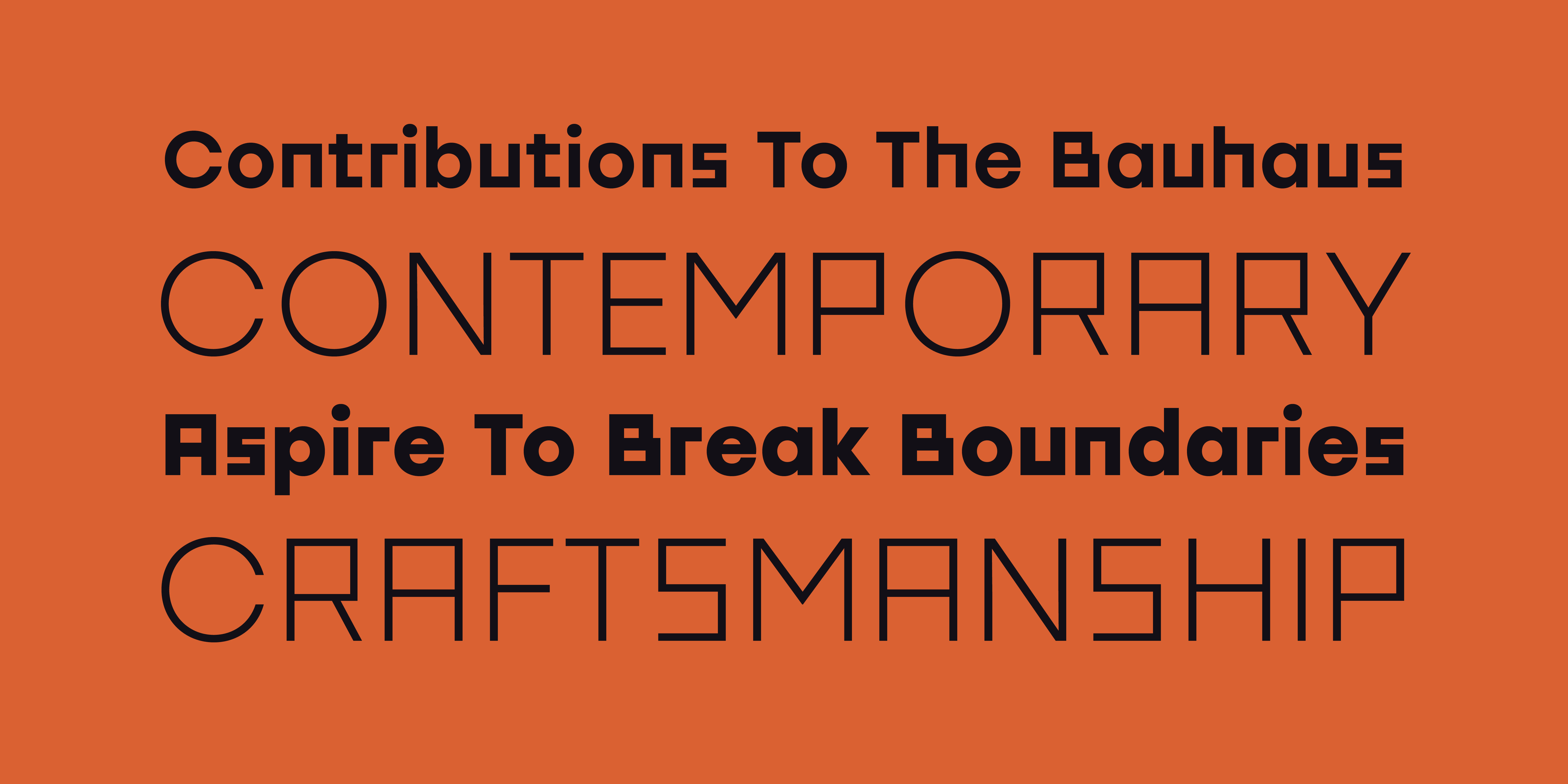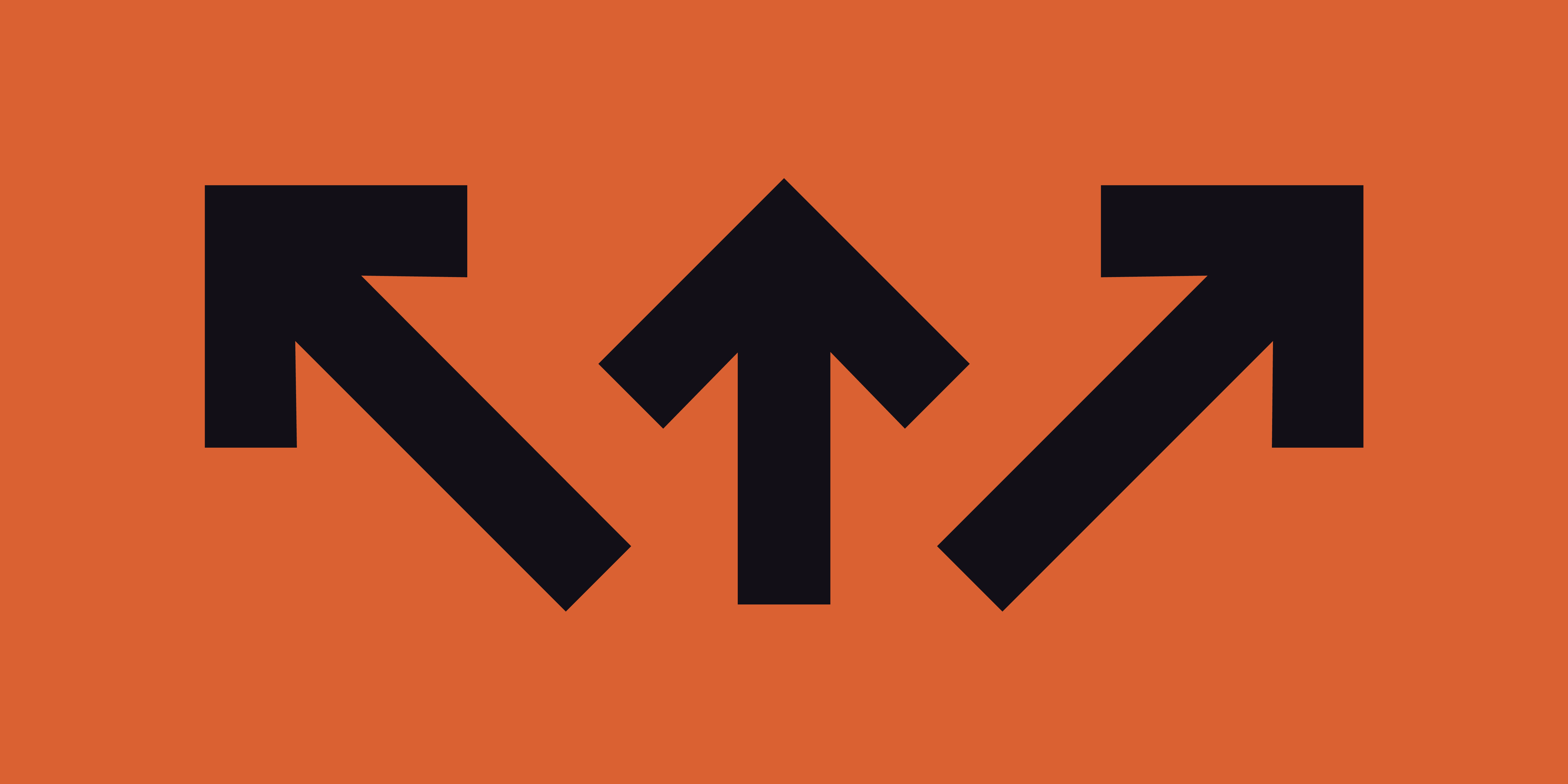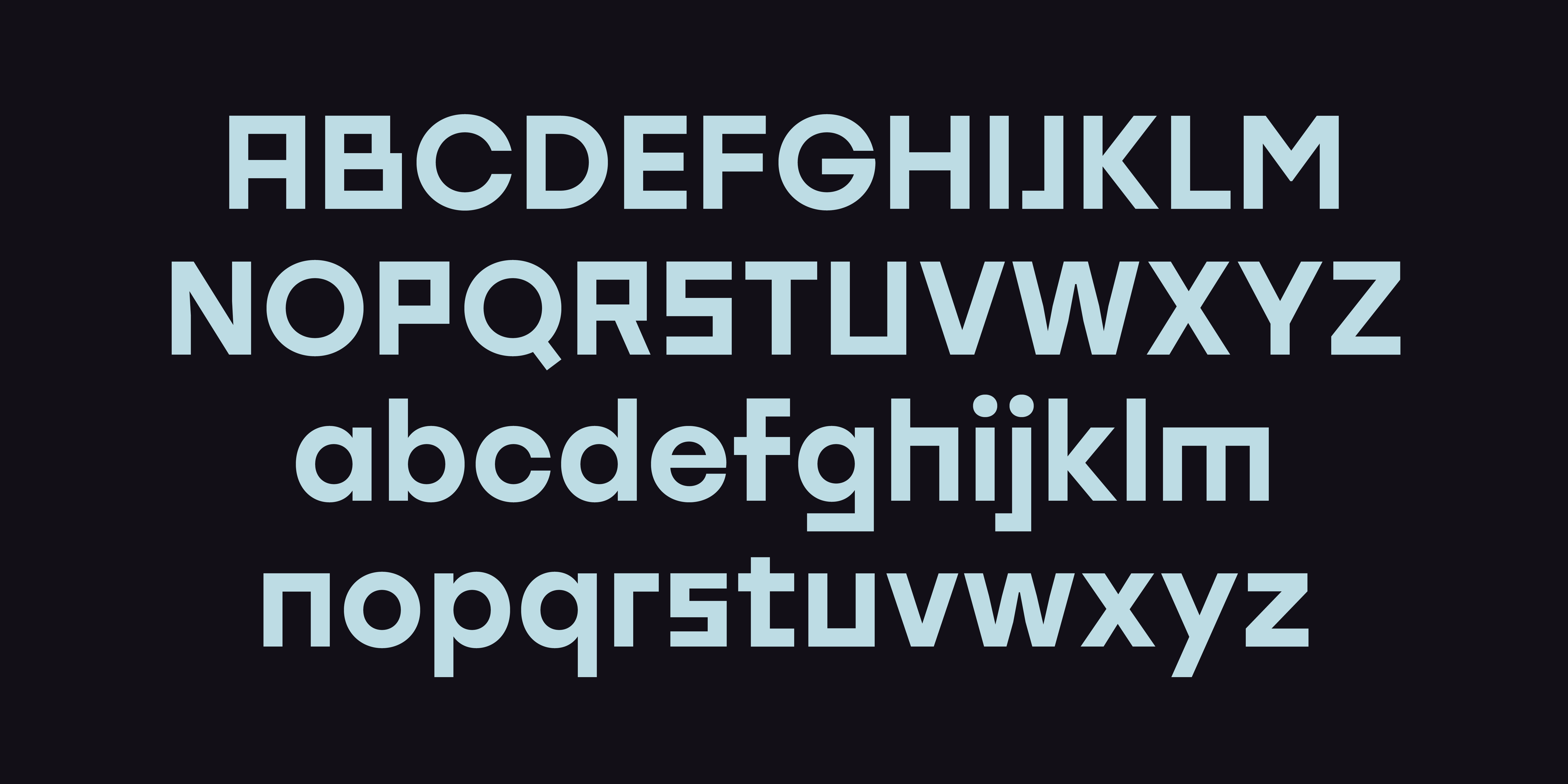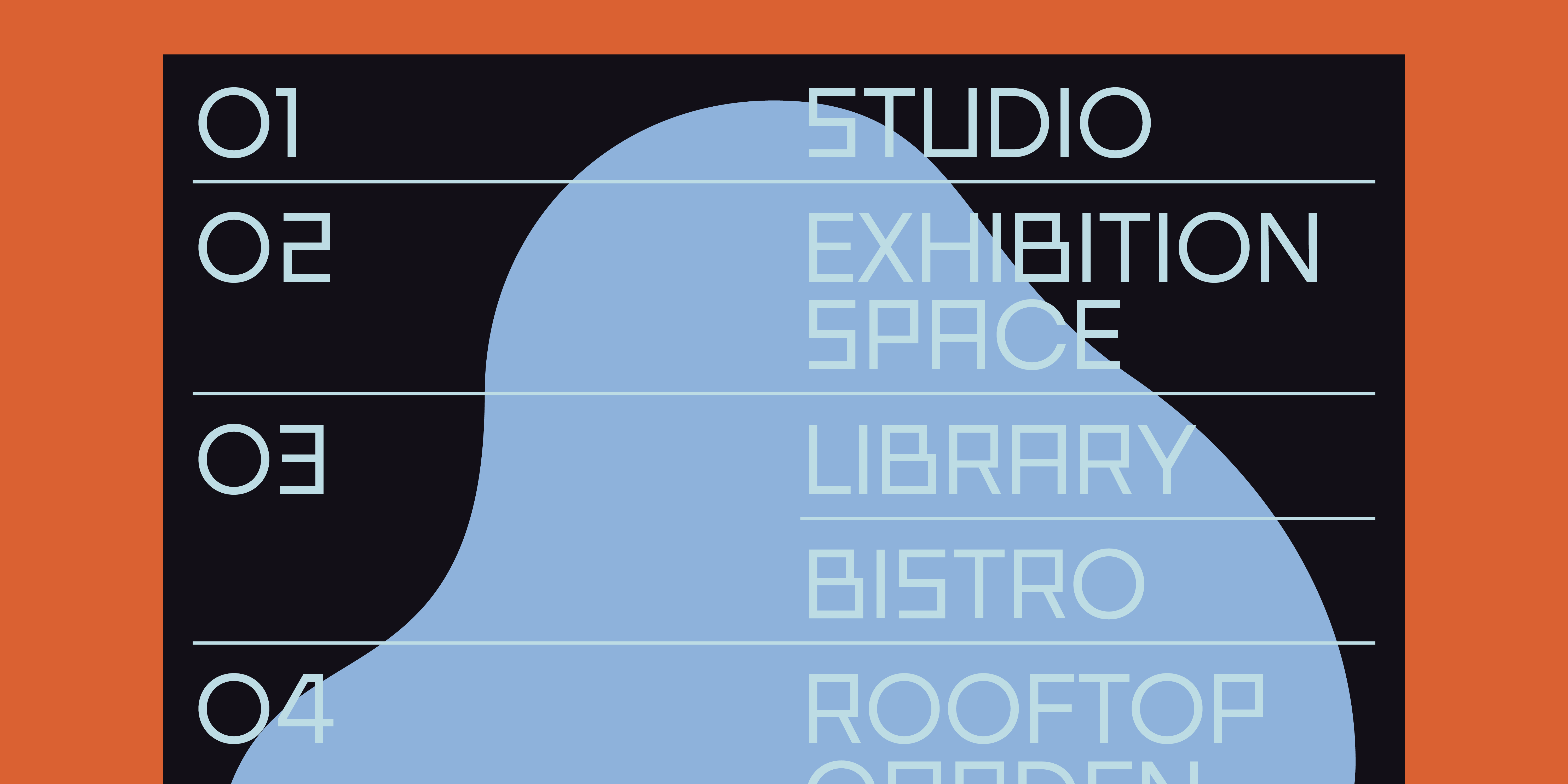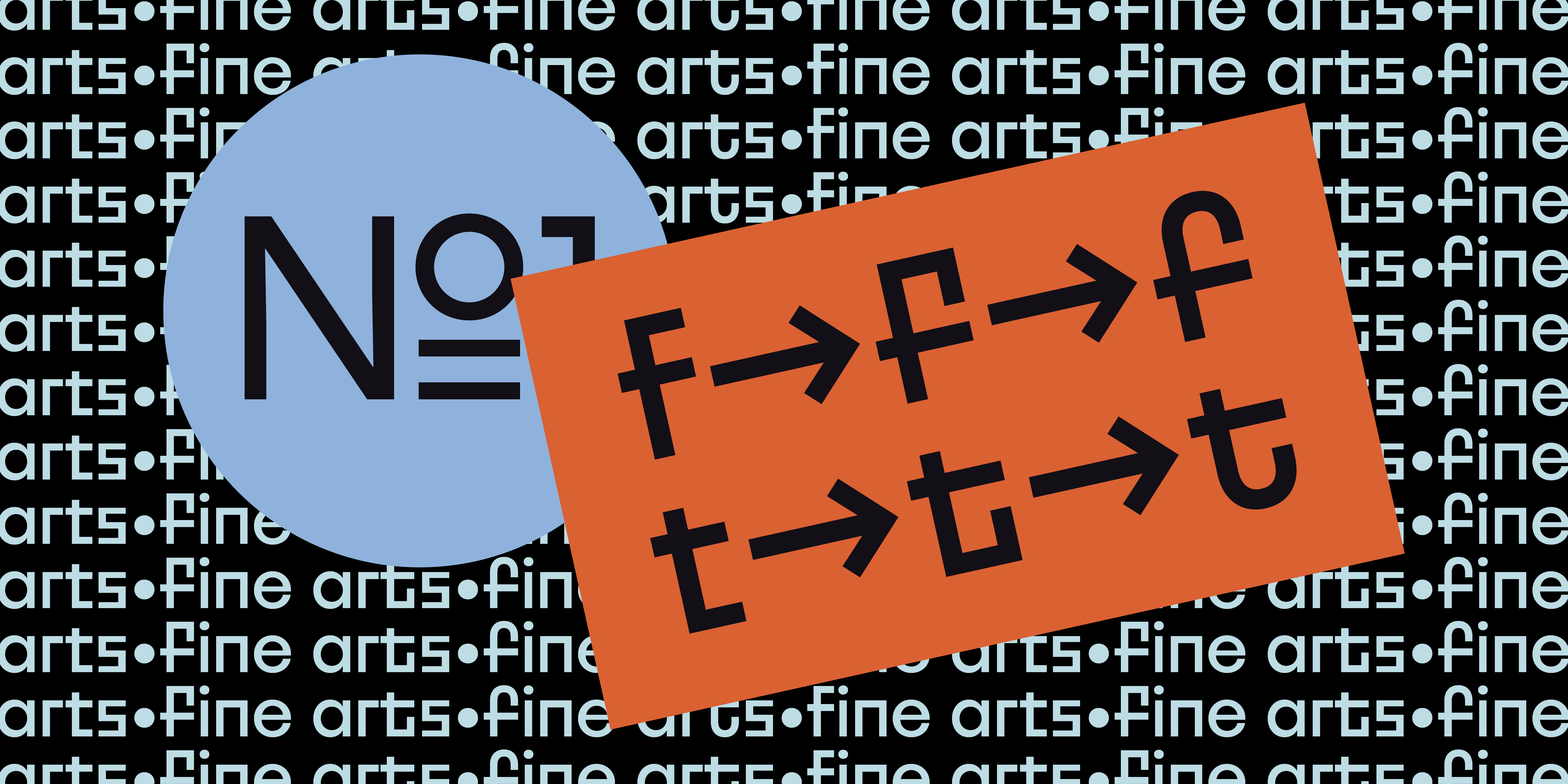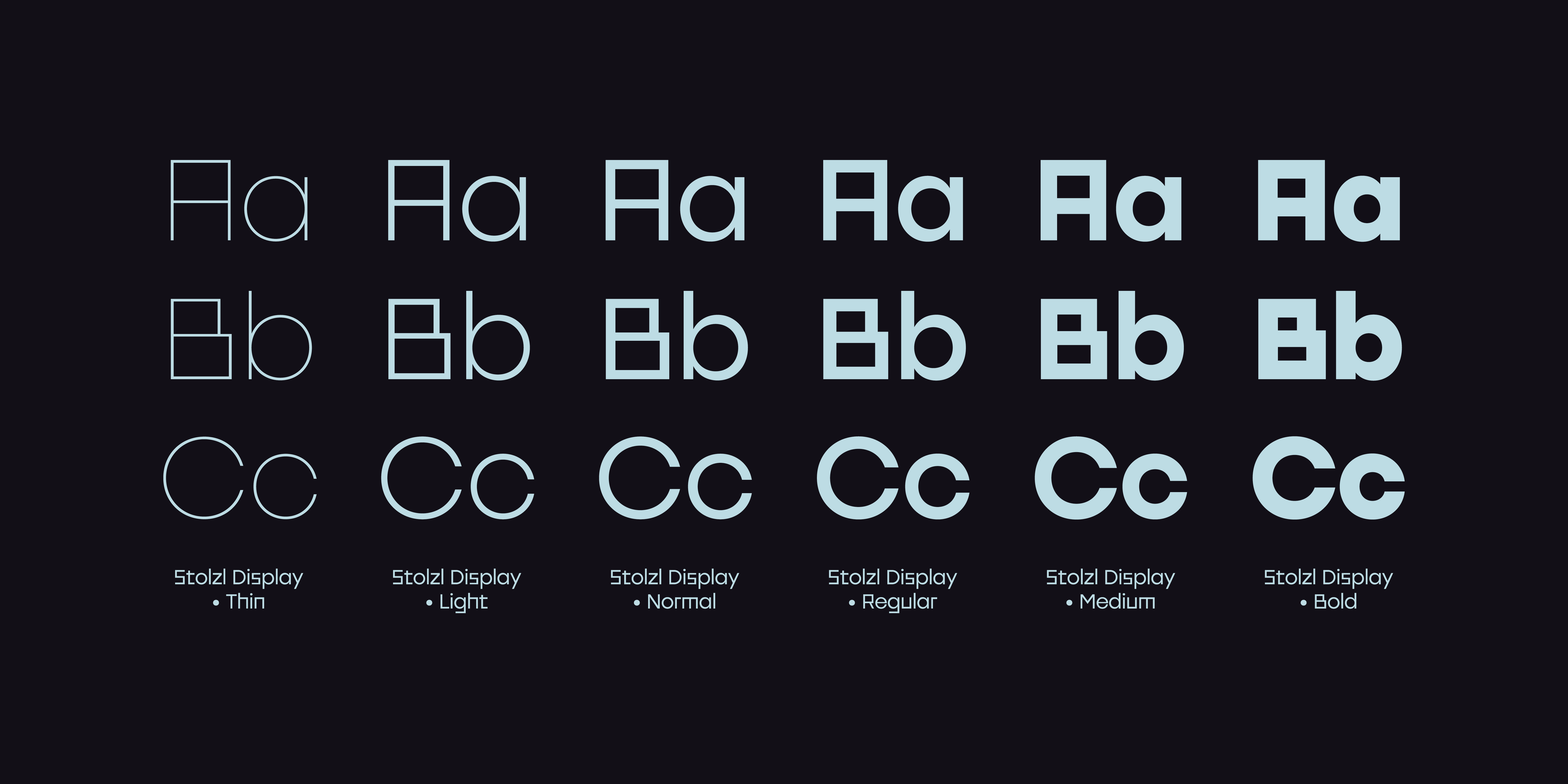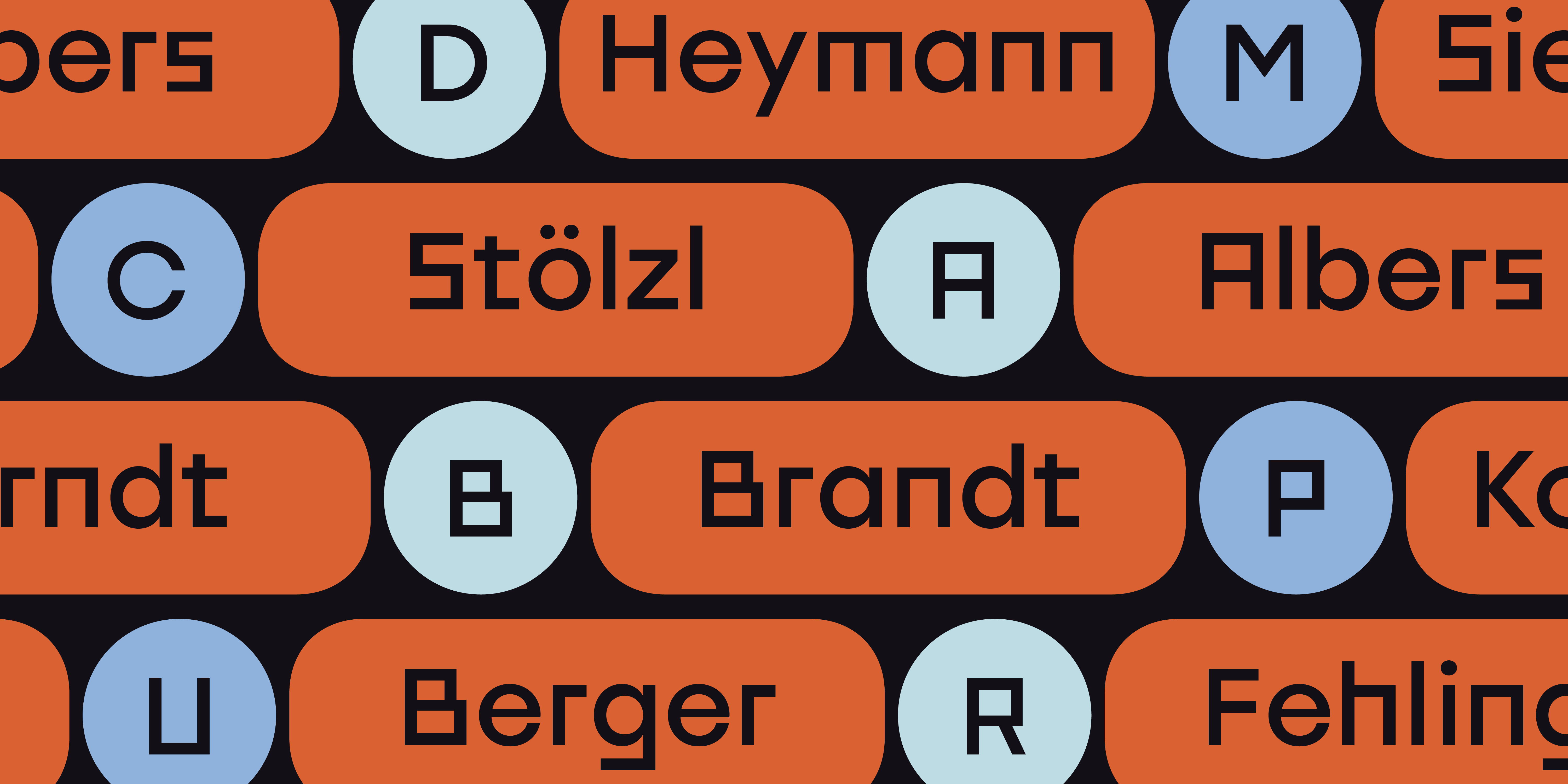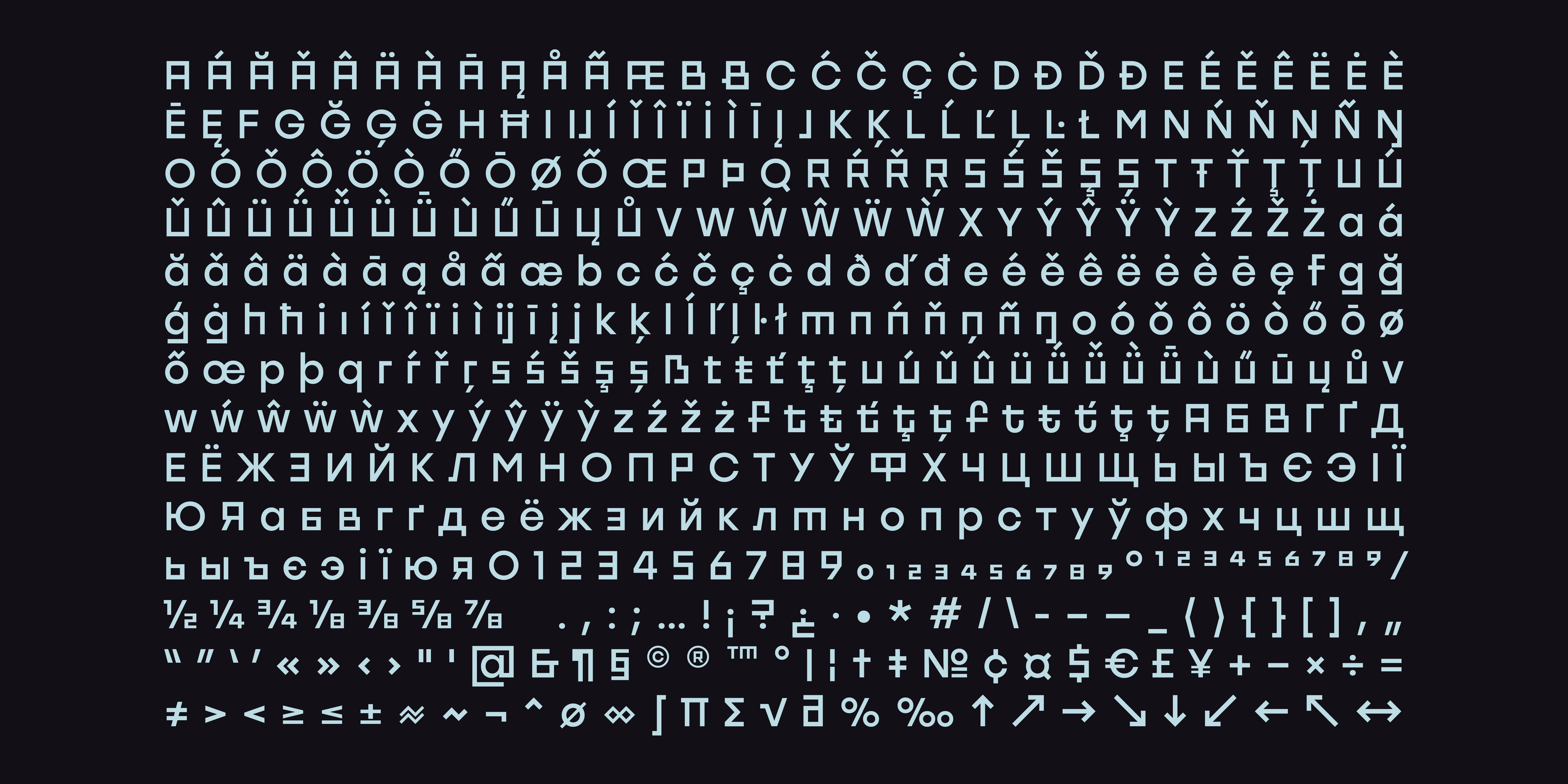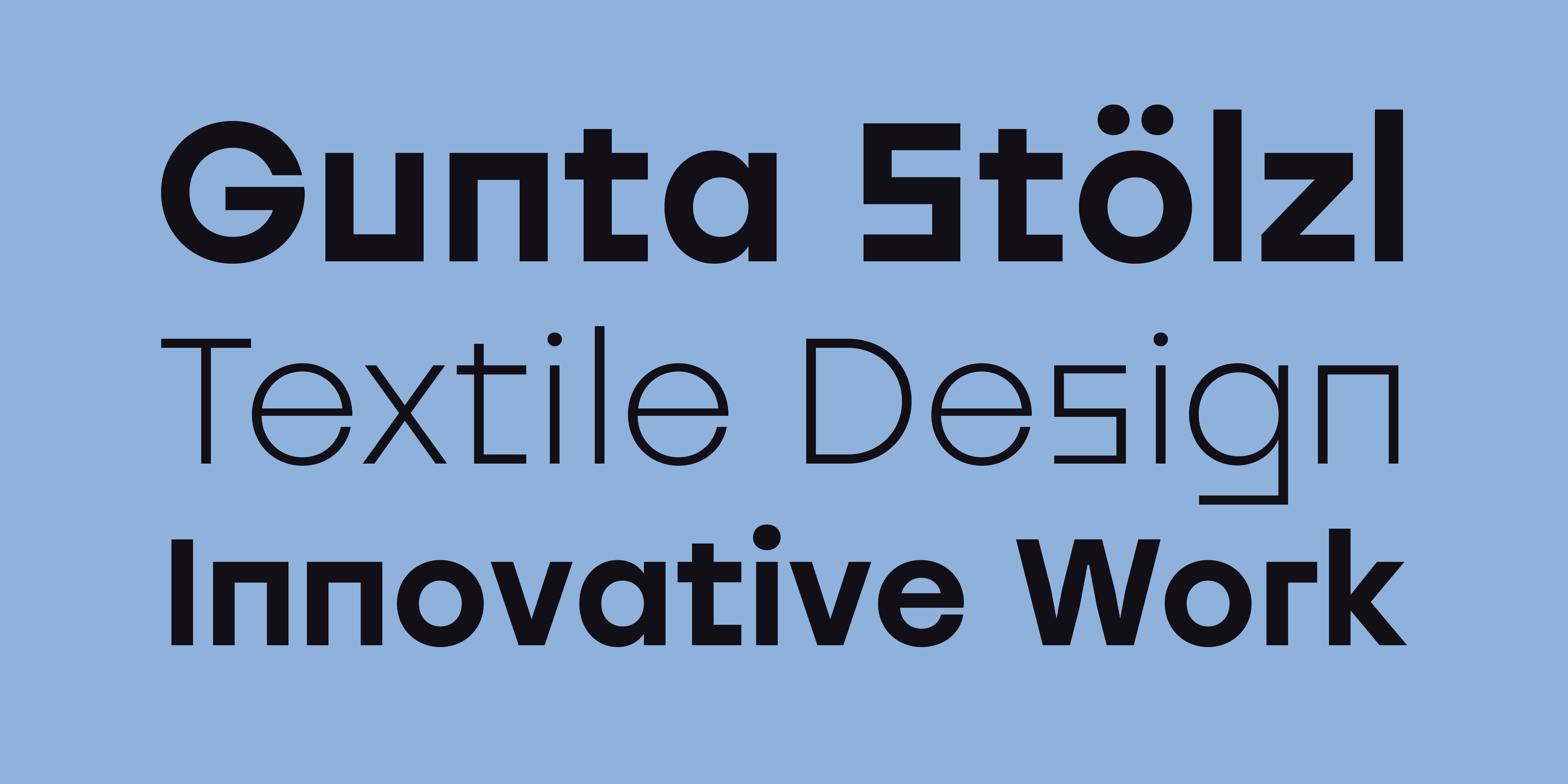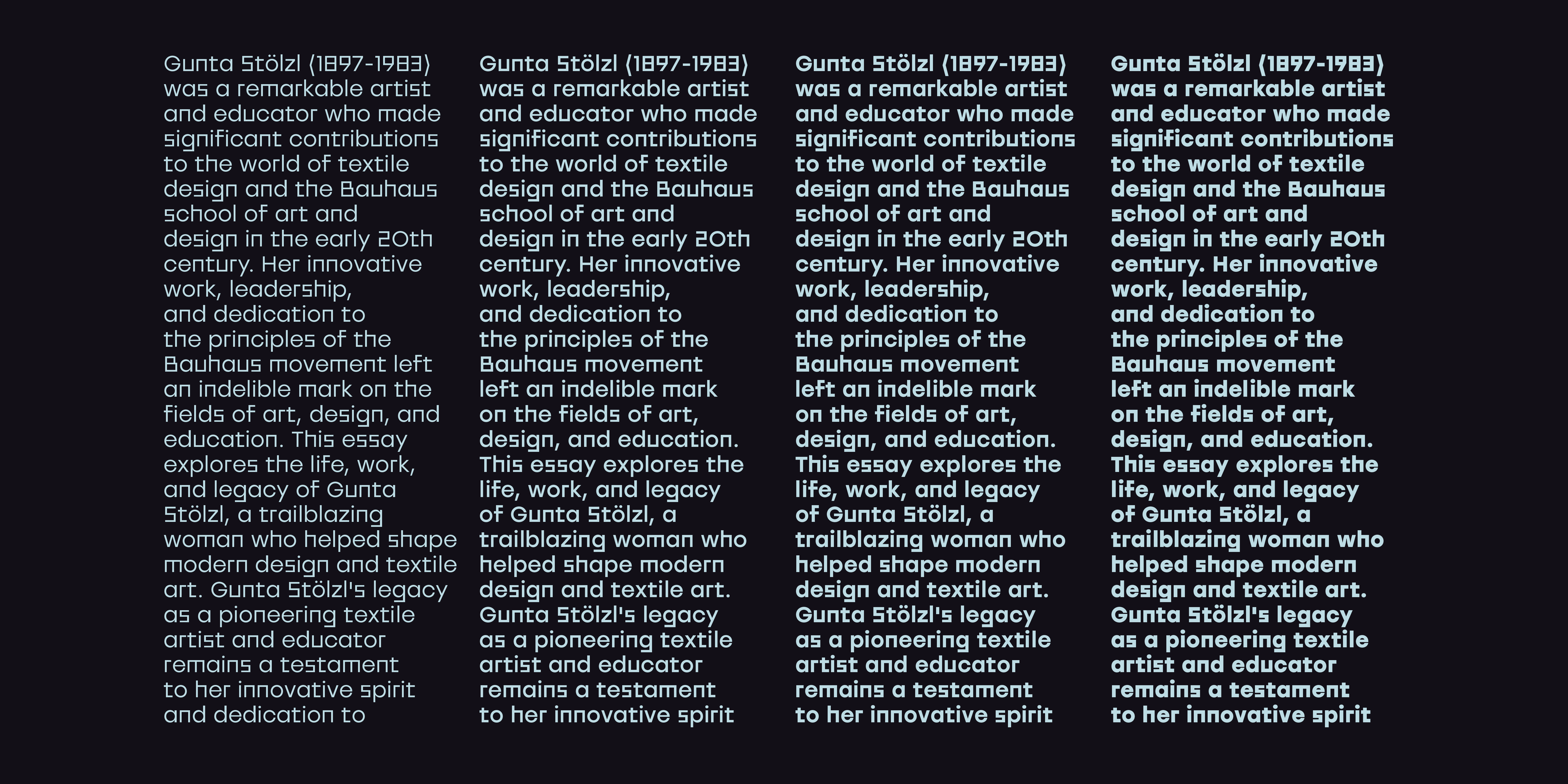
About Stolzl
Stolzl Display is an original font family designed for headlines, titles and subtitles. Based on the combination of contrasting shapes, the harmony of form and rhythm is fundamental to the design. Inspired by Bauhaus, Stolzl represents, not just the significant influence of this “crucible of modernism”, but aims at capturing its original idealism, commitment to creativity and experiment driven philosophy. Details include six weights, Cyrillic, 480 characters, alternative glyphs, manually edited kerning and Opentype features. Named after Gunta Stölzl, the Bauhaus’s only female master, Stolzl Display was the first subfamily of the Stolzl font collection to be released.
Stolzl is the text companion of the display family, Stolzl Display, which was optically tailored to perform as a functional addition to this concept steered font collection. Stolzl Text is a modernist interpretation of the first release, stripped of the primary stylised attributes, it is highly readable in print and on screen. Designed to perform at various sizes, Stolzl Text is a great addition to the type collection. As well as Latin-based languages, the type family also supports Cyrillic. Other details include six weights, 486 characters, manually edited kerning and Opentype features.